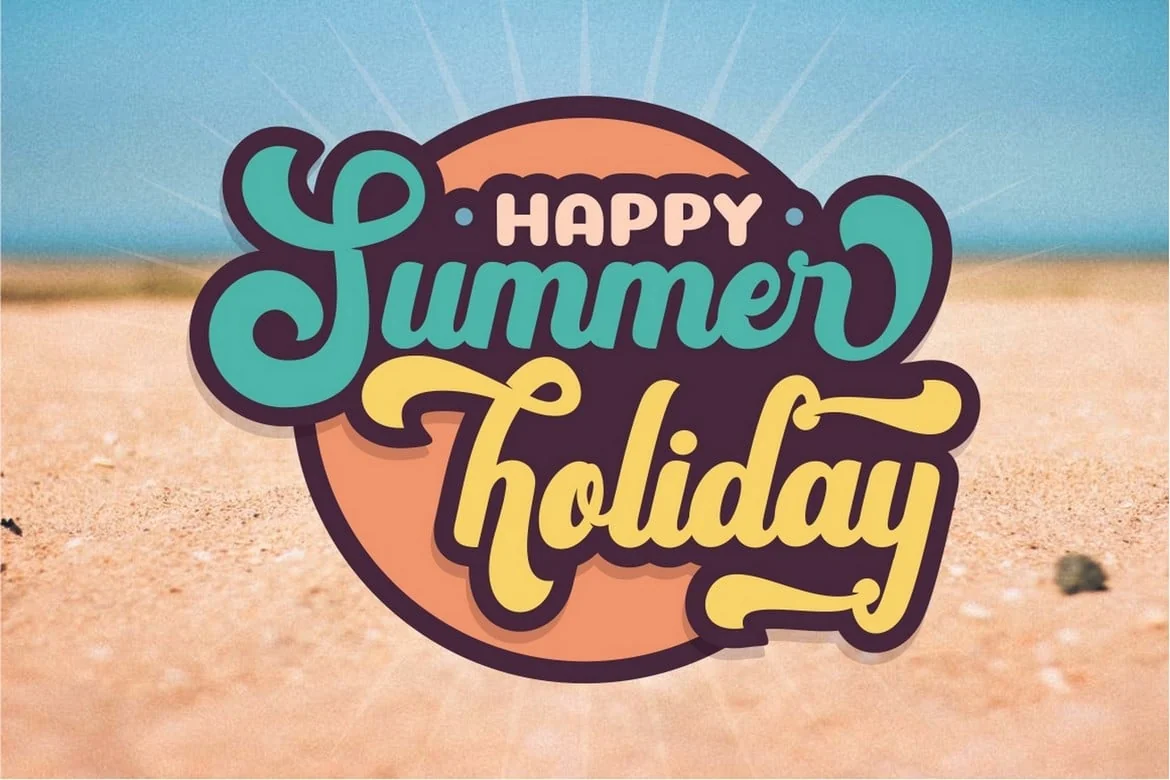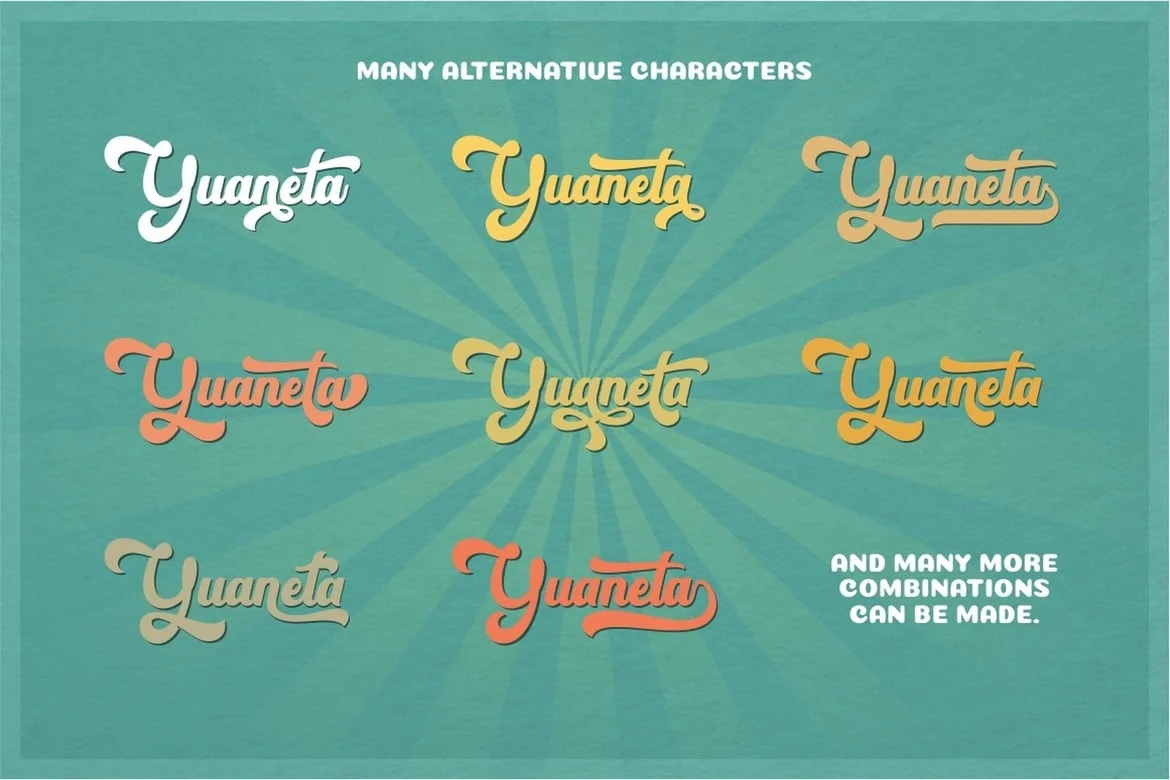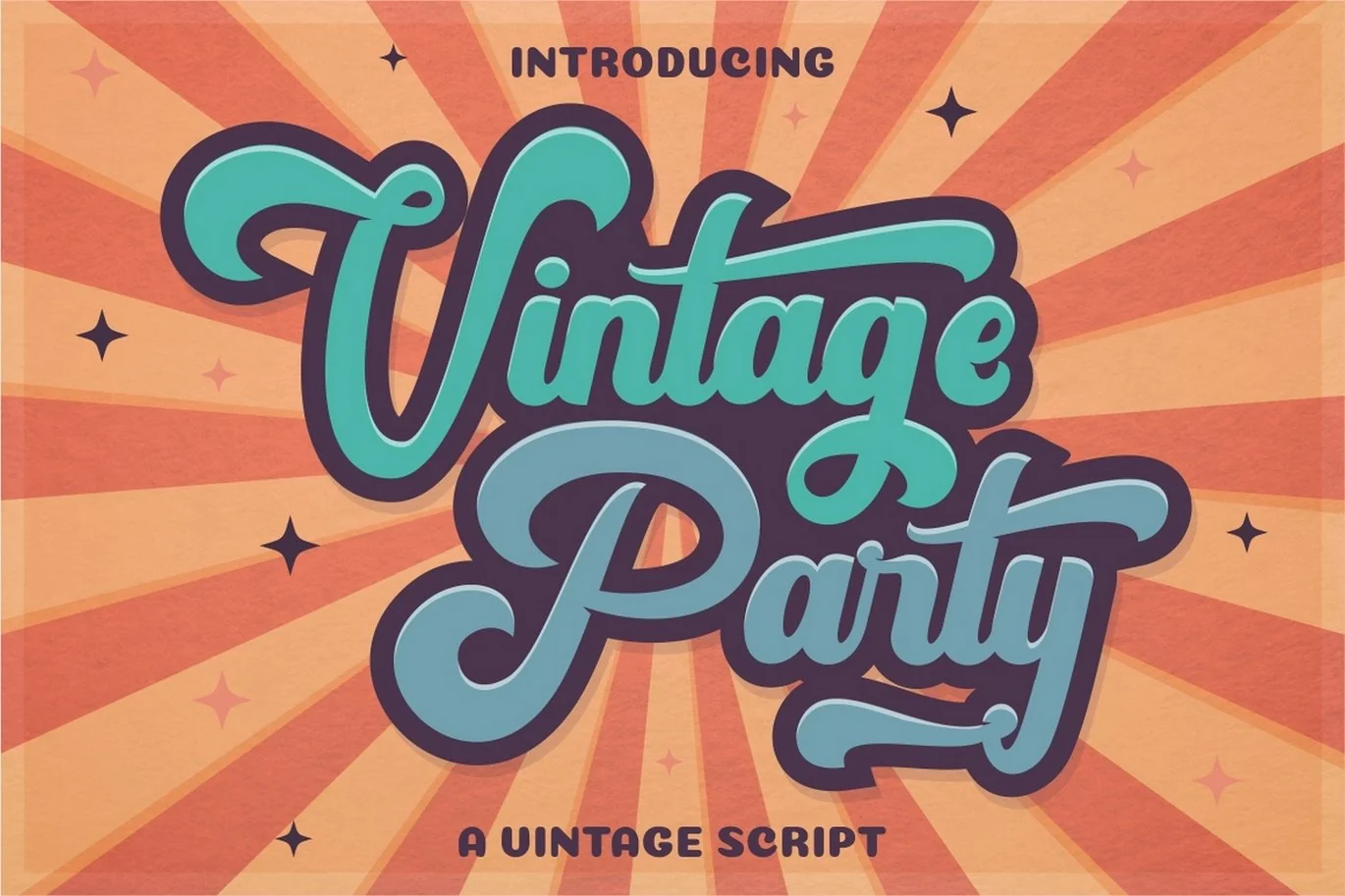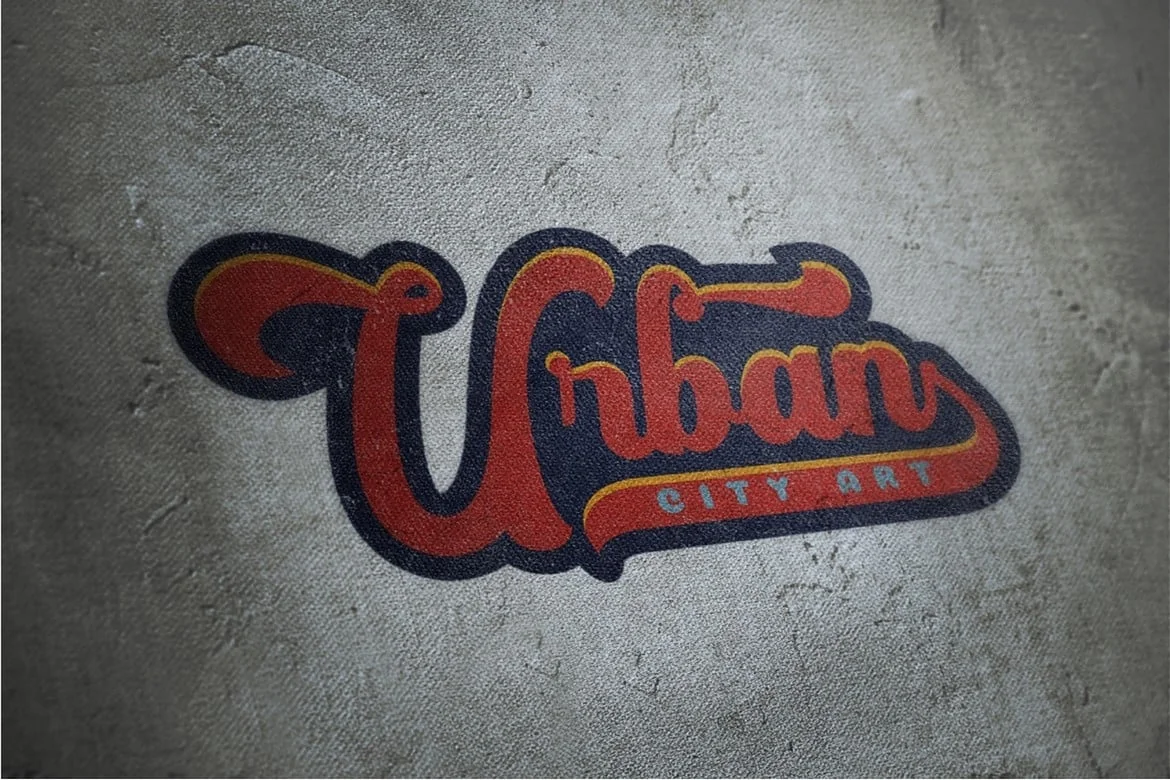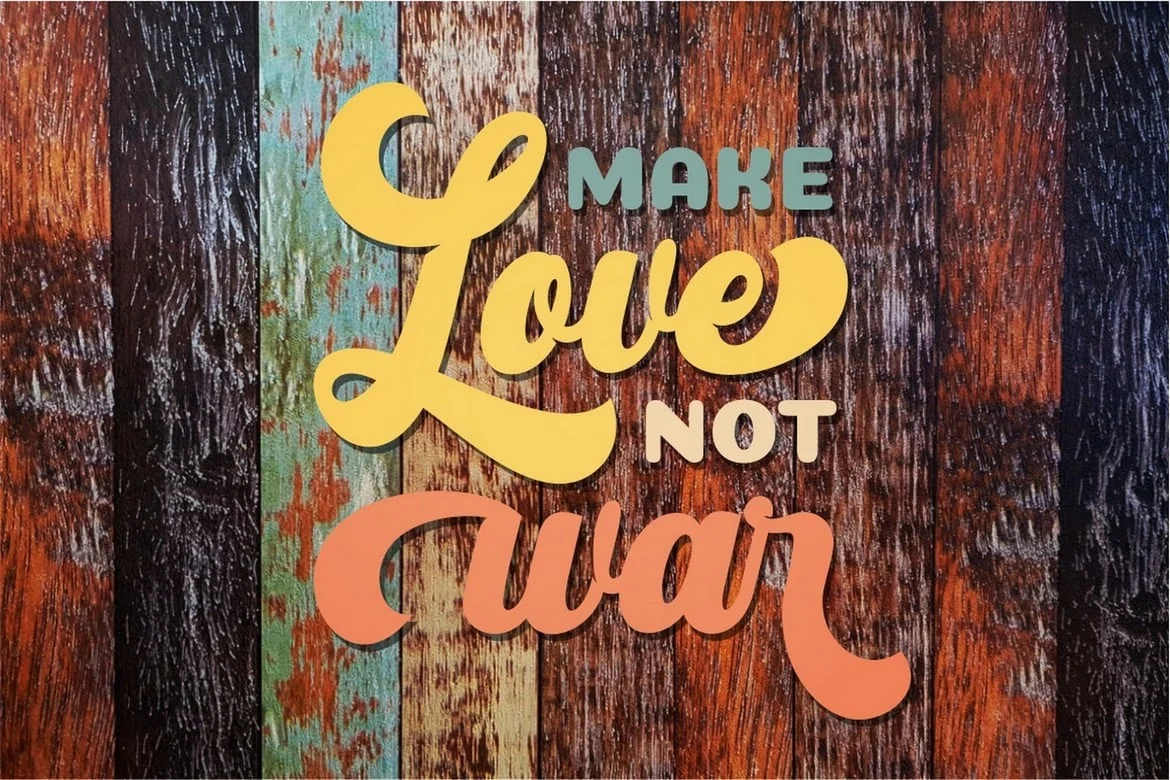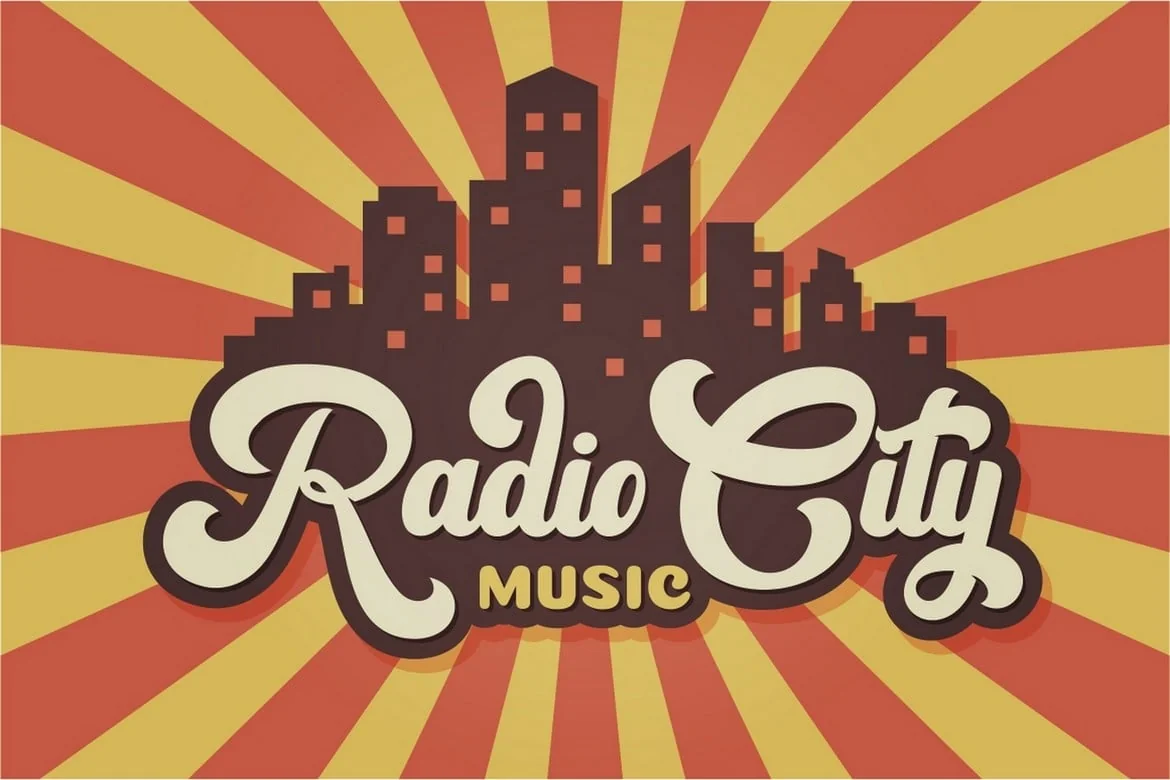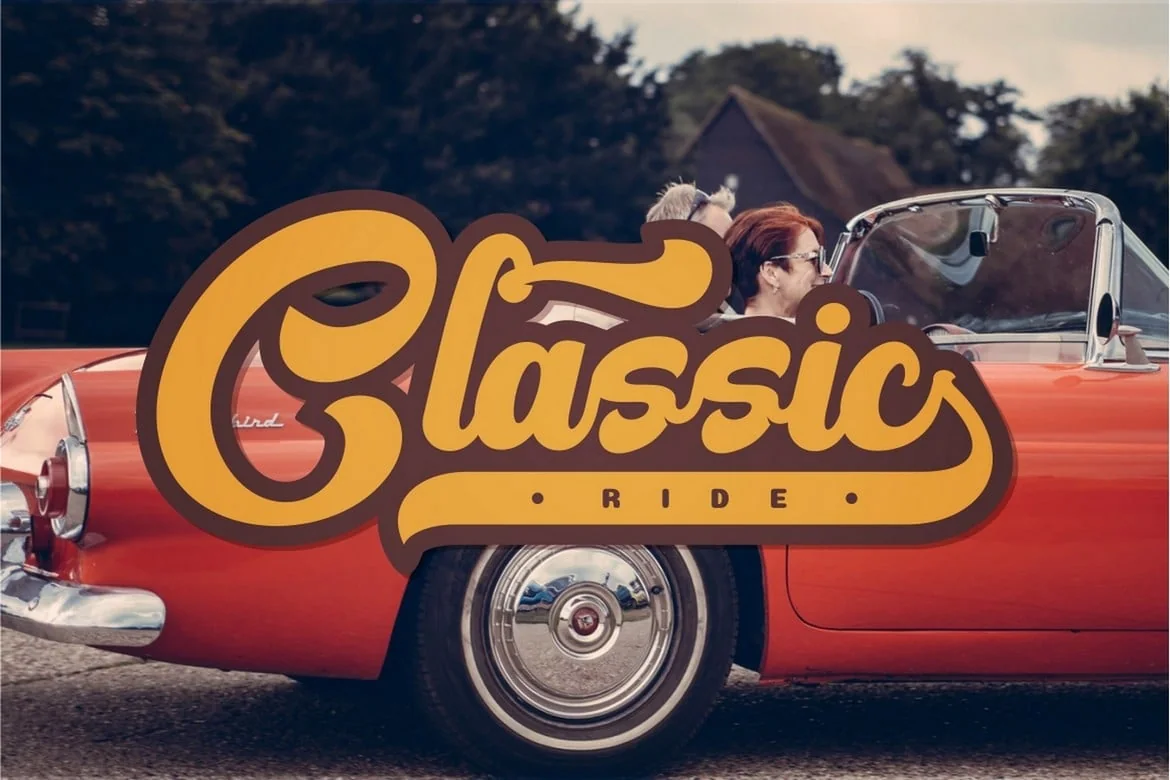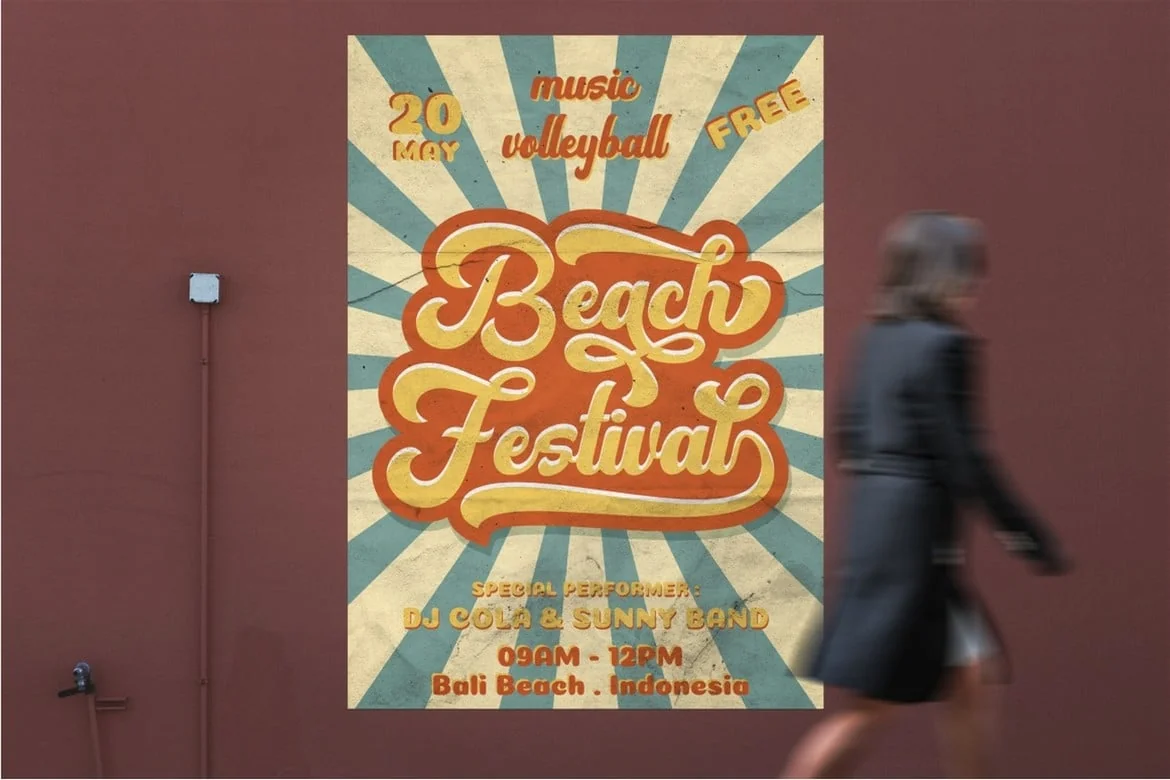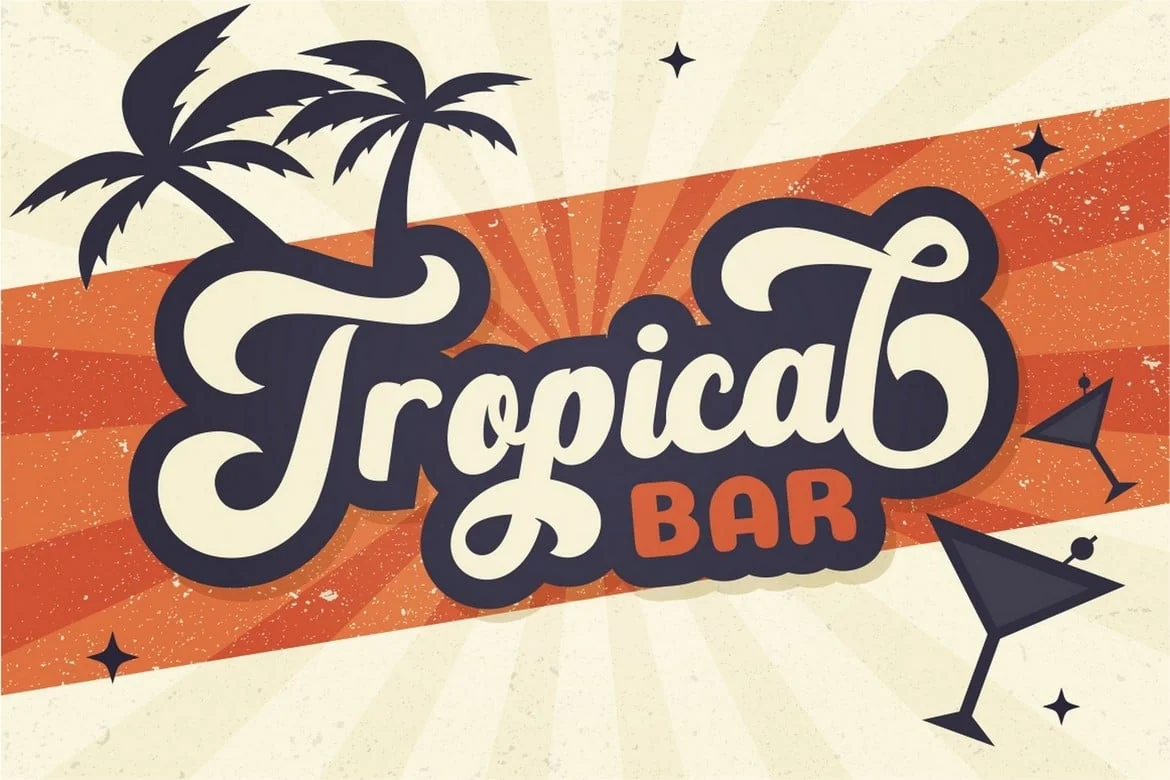
Vintage Party – Bold Retro Script Font
** Vintage Party **
Introducing a new vintage bold script “Vintage Party”. Inspired from retro typography from 80’s combine with bold typography style. Come with open type feature with a lot of alternates and end swash, its help you to make great lettering.
Vintage Party best uses for Logotype, heading,cover, poster, logos, quotes, product packaging, header, merchandise, social media & greeting cards and many more.